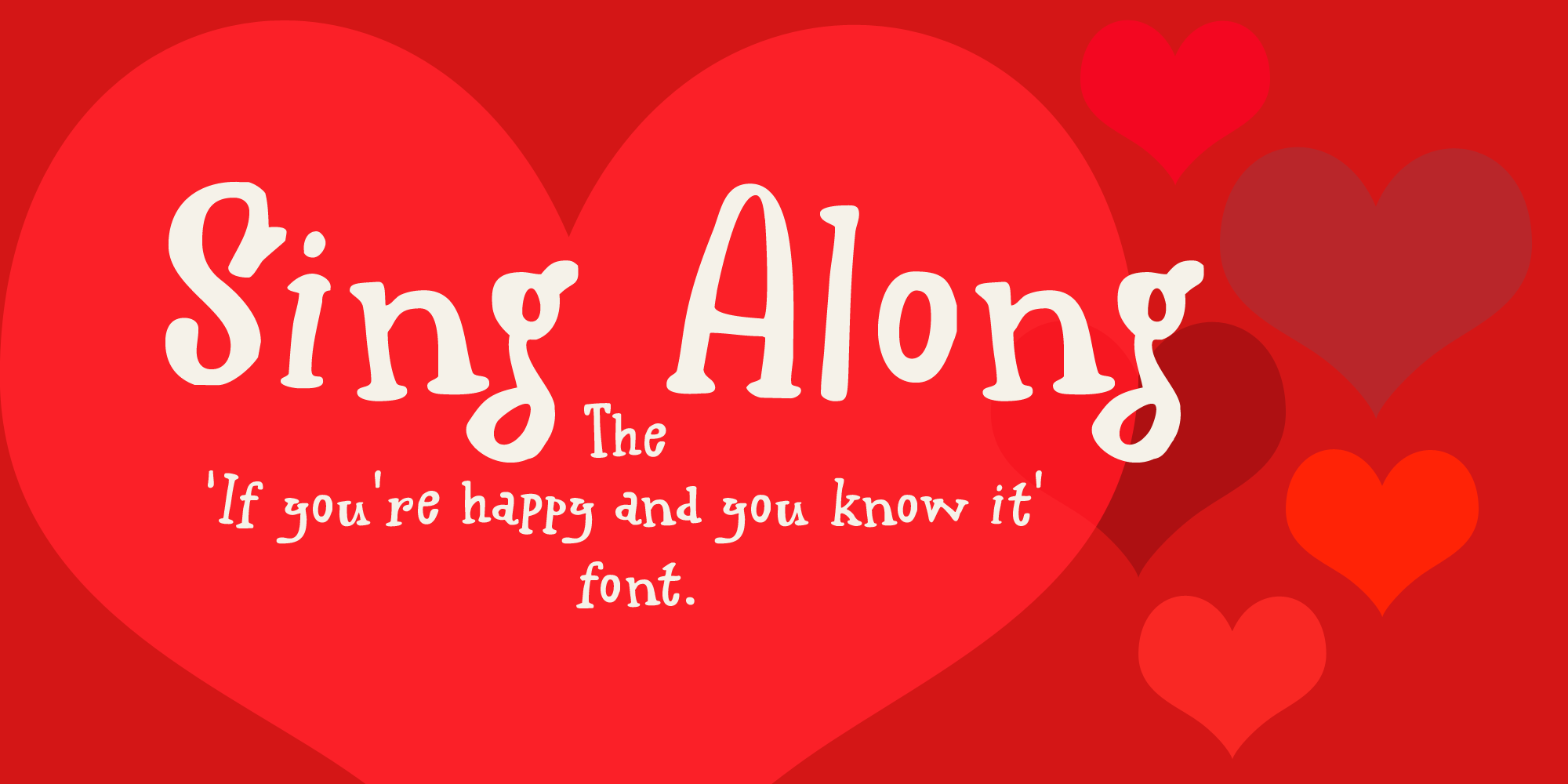
Sing Along Font is ideal for music festival branding, karaoke bar identities, children's music education materials, musical theater promotions, community choir marketing, music school communications, sing-along event advertising, musical instrument packaging, family entertainment branding, and joyful musical creative projects. This harmonious typeface excels in environments where musical joy and community singing are essential for creating uplifting and engaging musical experiences.
What makes Sing Along Font exciting is its delightful capture of musical harmony and collective joy through letterforms that seem to dance with rhythmic energy and melodic flow. The font features playful, music-inspired characteristics with subtle note-like details that convey happiness, togetherness, and the infectious joy that comes from shared musical experiences. This melodic aesthetic makes it perfect for brands seeking to communicate musical authenticity, community spirit, and the universal language of song that brings people together across all cultures.
Sing Along Font family includes Light, Regular, Medium, Bold, Melodic, Rhythmic, Harmonic, and Joyful variants. Each style maintains the font's distinctive musical character while offering different levels of rhythmic intensity and melodic expression, enabling designers to create authentic music-inspired compositions that celebrate community singing and musical togetherness across various entertainment applications.
The Sing Along Font Free Download provides designers with access to a premium music-inspired typeface that embodies the spirit of collective musical joy and community harmony. This font's melodic aesthetic and uplifting qualities make it particularly valuable for music organizations, entertainment venues, and community-focused businesses seeking to establish genuine connections with audiences who appreciate musical participation and shared joy.
Musical design professionals appreciate the font's ability to instantly communicate joy, harmony, and musical authenticity. The letterforms' rhythmic characteristics and music-inspired details create uplifting connections that silent fonts cannot achieve, making it essential for projects requiring distinctive musical personality and community appeal.
When working with Sing Along Font, designers can create compelling visual narratives that resonate with music lovers and community-minded audiences. The font's harmonious character makes it especially effective for brands in music education, entertainment venues, community events, and musical services where authentic musical credibility and joyful participation are crucial for audience engagement.
For digital applications, Sing Along Font maintains its distinctive musical qualities across different platforms while ensuring excellent readability in modern entertainment contexts. Its optimized spacing preserves the rhythmic flow essential for authentic musical appeal.
Entertainment marketing agencies consistently select Sing Along Font for projects requiring genuine musical appeal and community authenticity, where conventional typography cannot capture the desired joy and harmonic spirit that defines contemporary music culture and community singing movements.